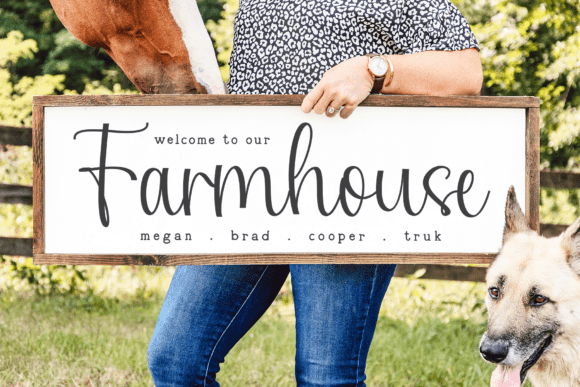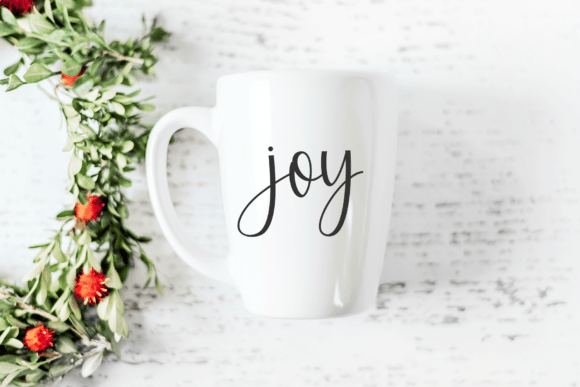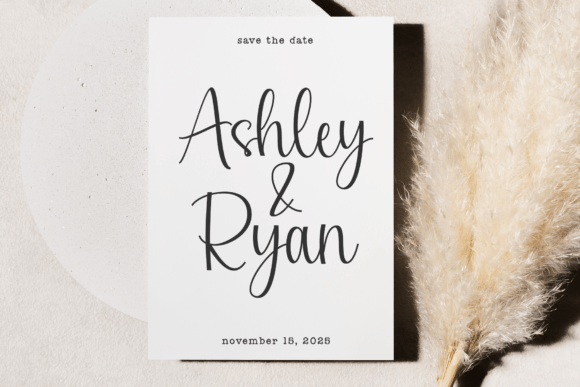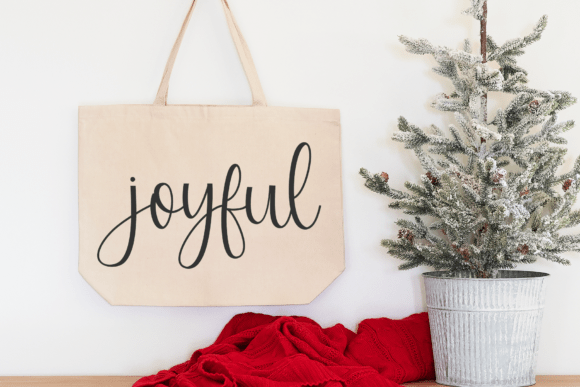
Joyful Script Font
Introducing Joyful Script – a distinctive, modern farmhouse-inspired script font. Skillfully crafted, this font effortlessly infuses a contemporary flair into rustic designs. Its elegant scripting transforms various creative projects, from transforming your wedding decor and invitations to elevating farmhouse design concepts. With Joyful Script, you can breathe novel life into SVG files and logos, ensuring your designs make a sophisticated, stylized statement. Indulge in the versatility offered by Joyful Script, where modern charm meets rustic simplicity.